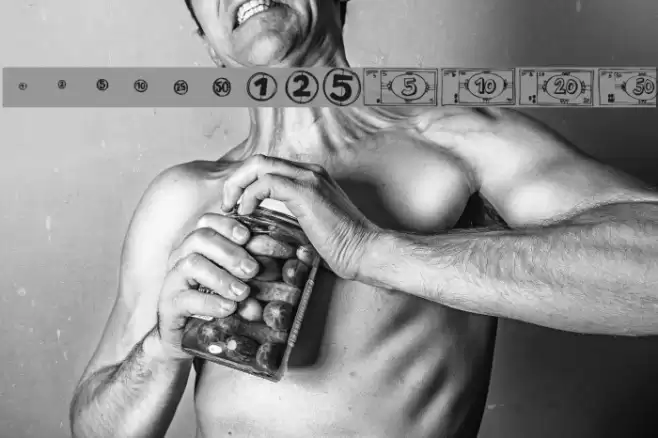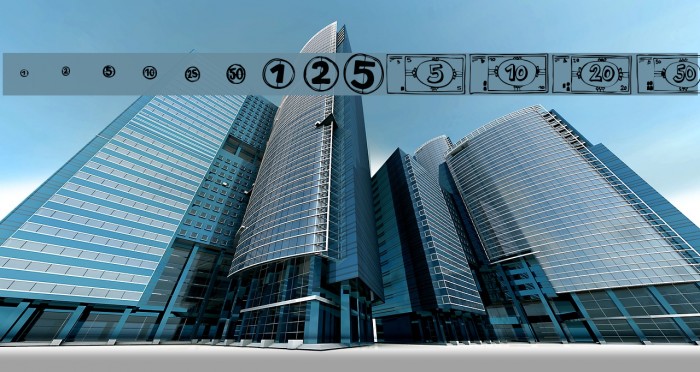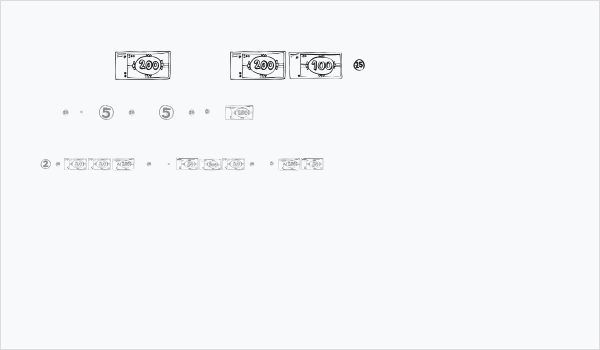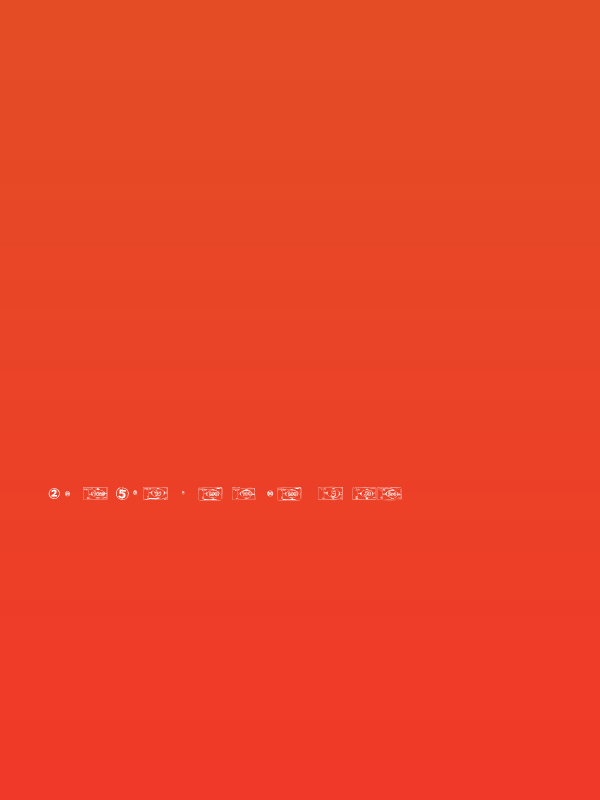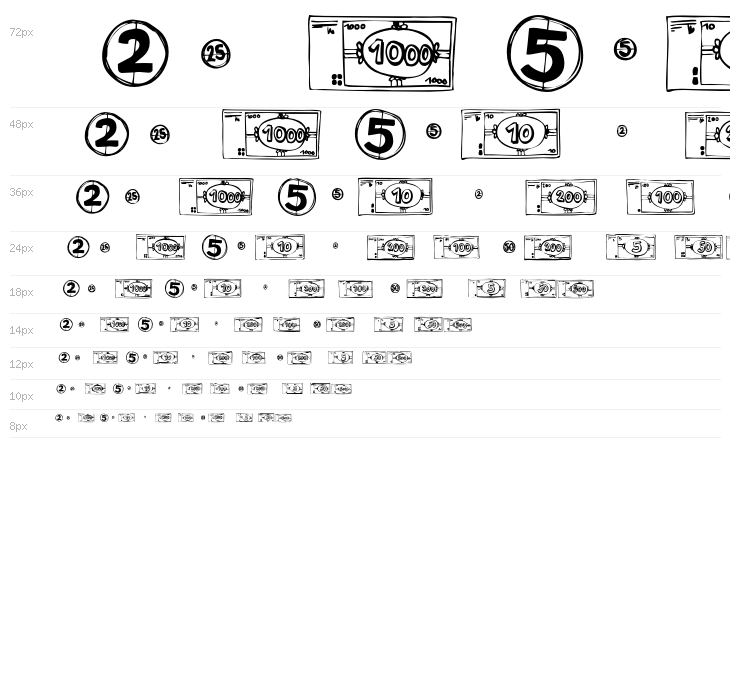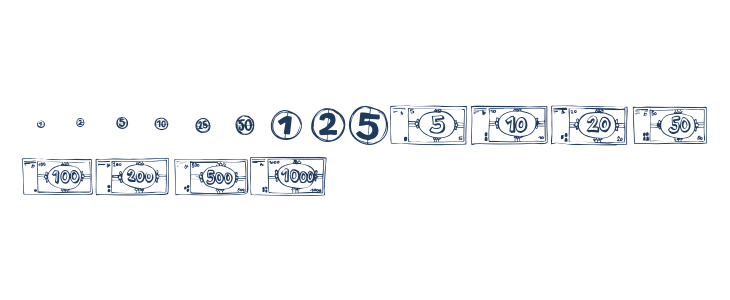
FE-Mo'Money Font
FE-Mo'Money Description
This is a decorative font that mimics the appearance of currency symbols and denominations. The characters are designed to resemble coins and banknotes, with intricate details that give them a three-dimensional look. Each character is enclosed in a shape that resembles a coin or a bill, complete with borders and embellishments that add to the monetary theme. The numbers are prominently displayed, making them stand out as if they were printed on actual currency. This font is playful and thematic, ideal for projects that require a financial or economic motif.
| Use Case | Logos, Posters, Educational Materials |
| Proposed Projects | Ideal for financial-themed designs, educational materials about money, or playful projects related to economics. |